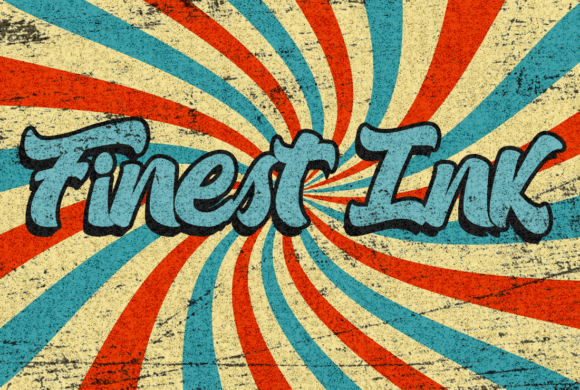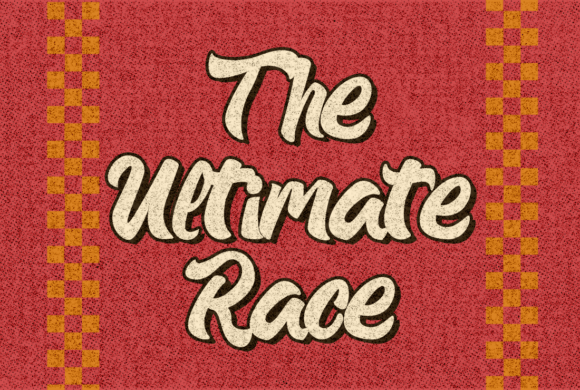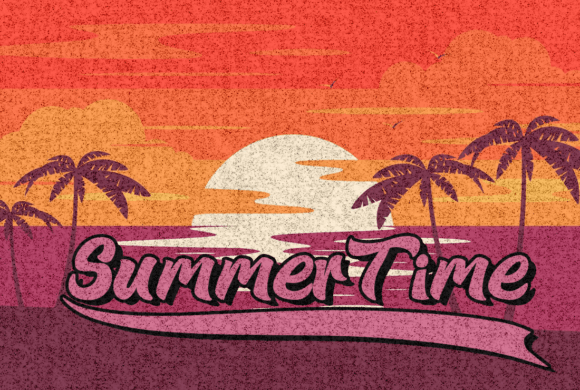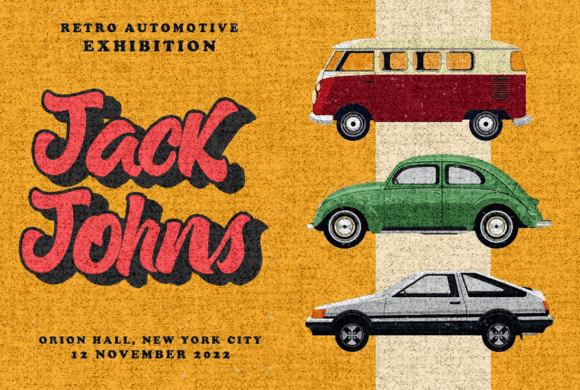
Finest Ink Font
About the Finest Ink Font
Crafted with precision, the Finest Ink Font is ready to bring your ideas to life. Finest ink is a Vintage retro font inspired by retro typography and lettering in the 70s and 80s combined with a bold typography style.
This font is perfect for vintage and retro designs, badges, logos, t-shirts, posters, branding, packaging, signage, book covers, and so much more!
Finest Ink’s bold, retro style excels in headlines, logos, and short-form text applications like posters and packaging. Its strong character makes it ideal for brands conveying a vintage or nostalgic feel, particularly those in fashion, music, or craft industries. However, its condensed letterforms and strong weight are less suitable for body text or UI elements requiring high readability.
Pairing Finest Ink with a clean sans-serif like Helvetica Neue for supporting text creates a pleasing contrast. For a more vintage aesthetic, consider pairing it with a complementary serif font like Garamond or a script like Playfair Display, balancing the boldness with elegance.
The overall personality of Finest Ink is confident and assertive, yet retains a playful, approachable quality thanks to its retro influences. This makes it a versatile choice for projects aiming for a retro-modern feel without sacrificing impact.